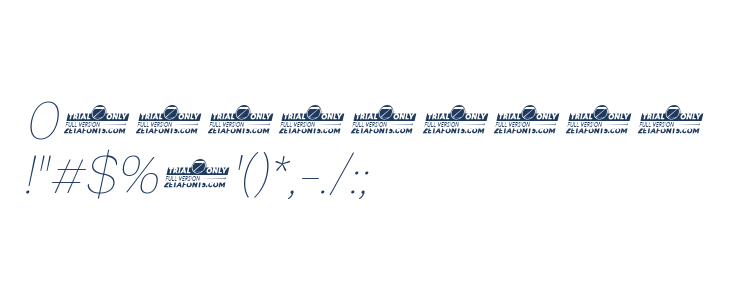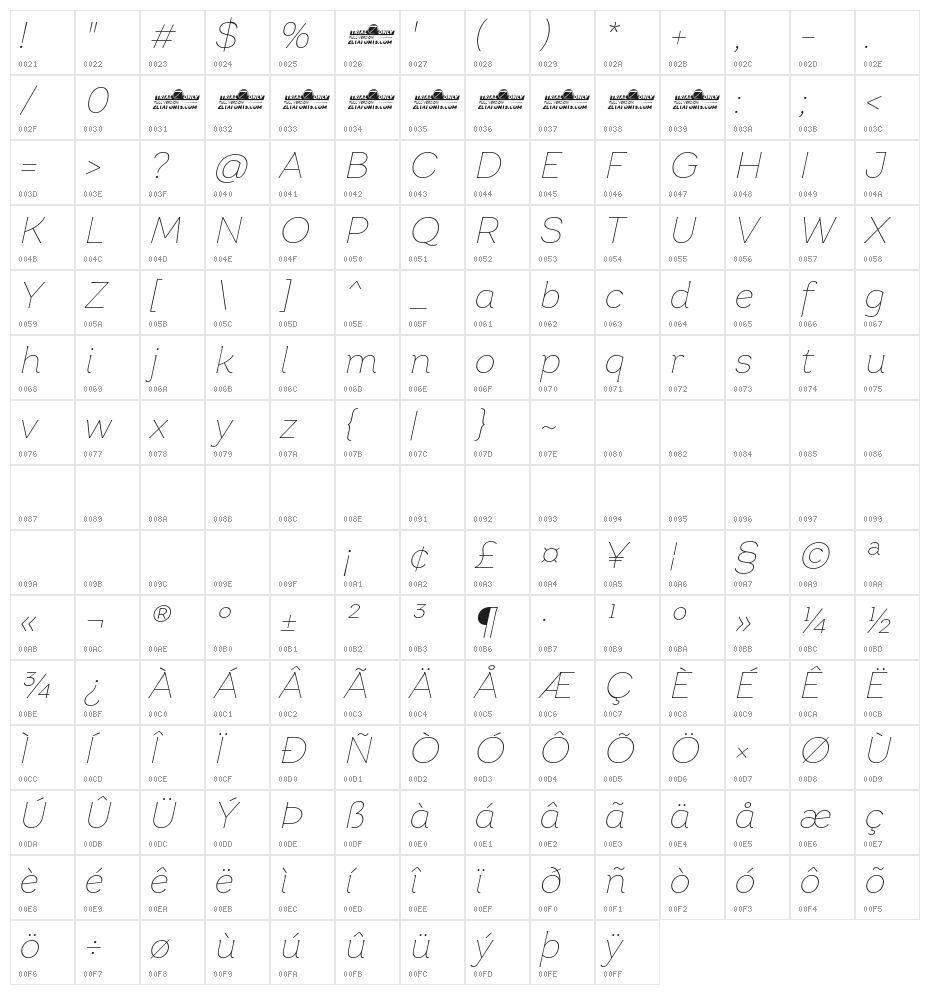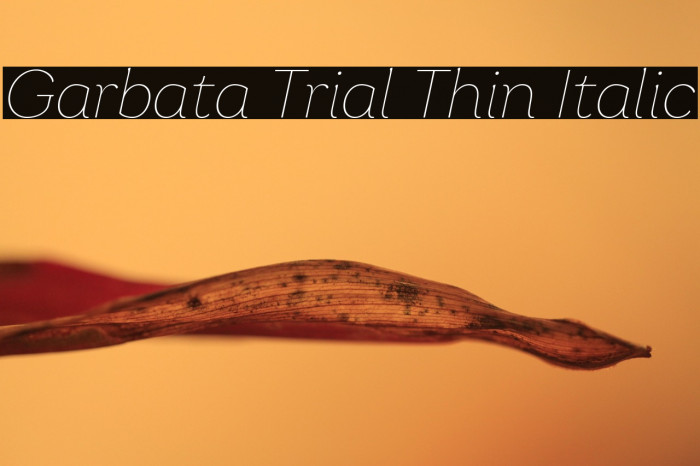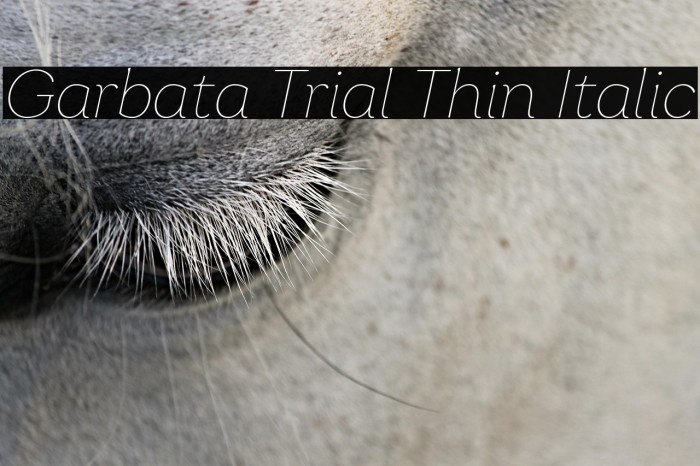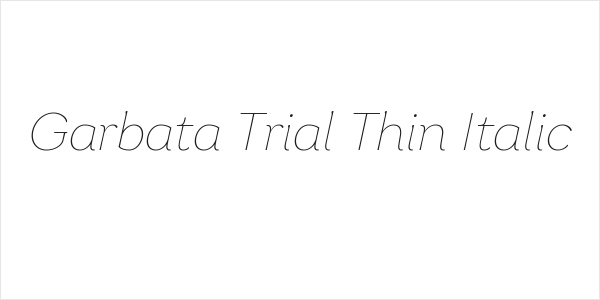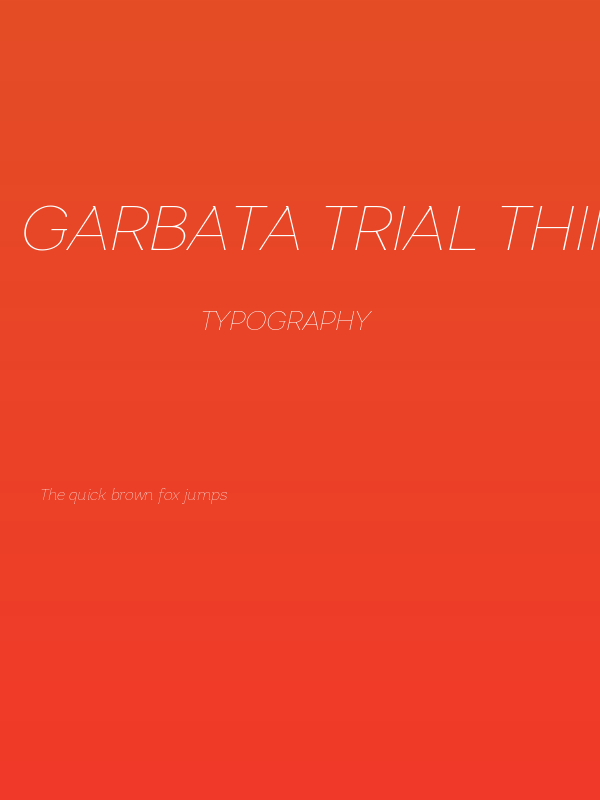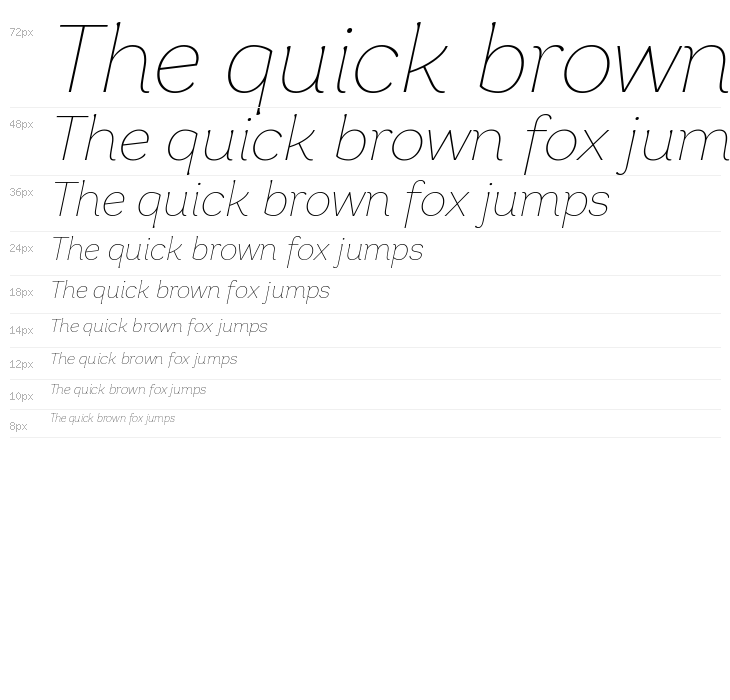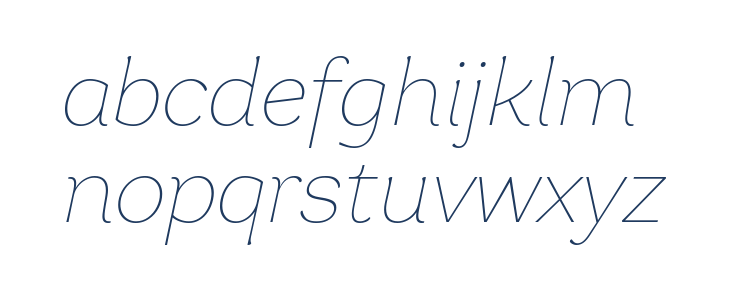
Garbata Trial Thin Italic Font
Garbata Trial Thin Italic Description
This font features a thin, elegant design with a slight italic slant, giving it a sophisticated and modern appearance. The characters are sleek and elongated, with a consistent stroke width that adds to its refined aesthetic. The uppercase and lowercase letters maintain a harmonious balance, while the numerals and special characters are crafted with precision. The font's overall style is clean and minimalistic, making it suitable for a variety of design applications where a touch of elegance is desired.
| Proposed Projects | Ideal for fashion magazines, luxury branding, elegant invitations, and modern web design. |